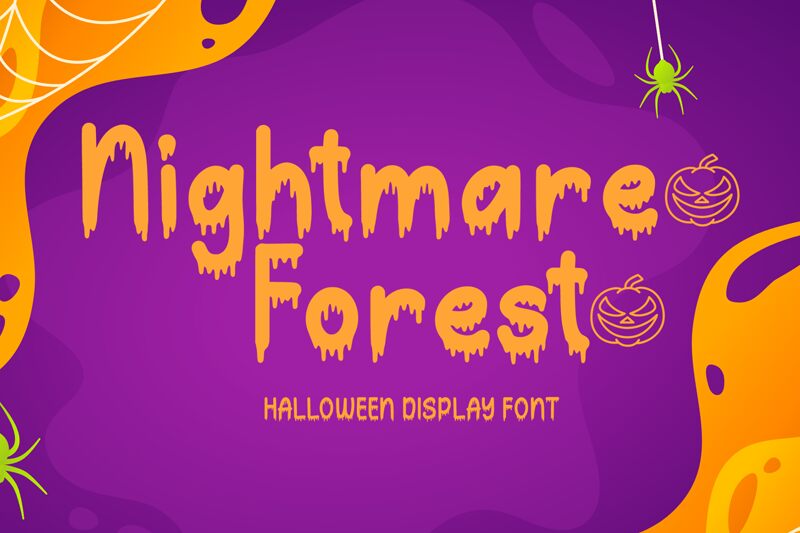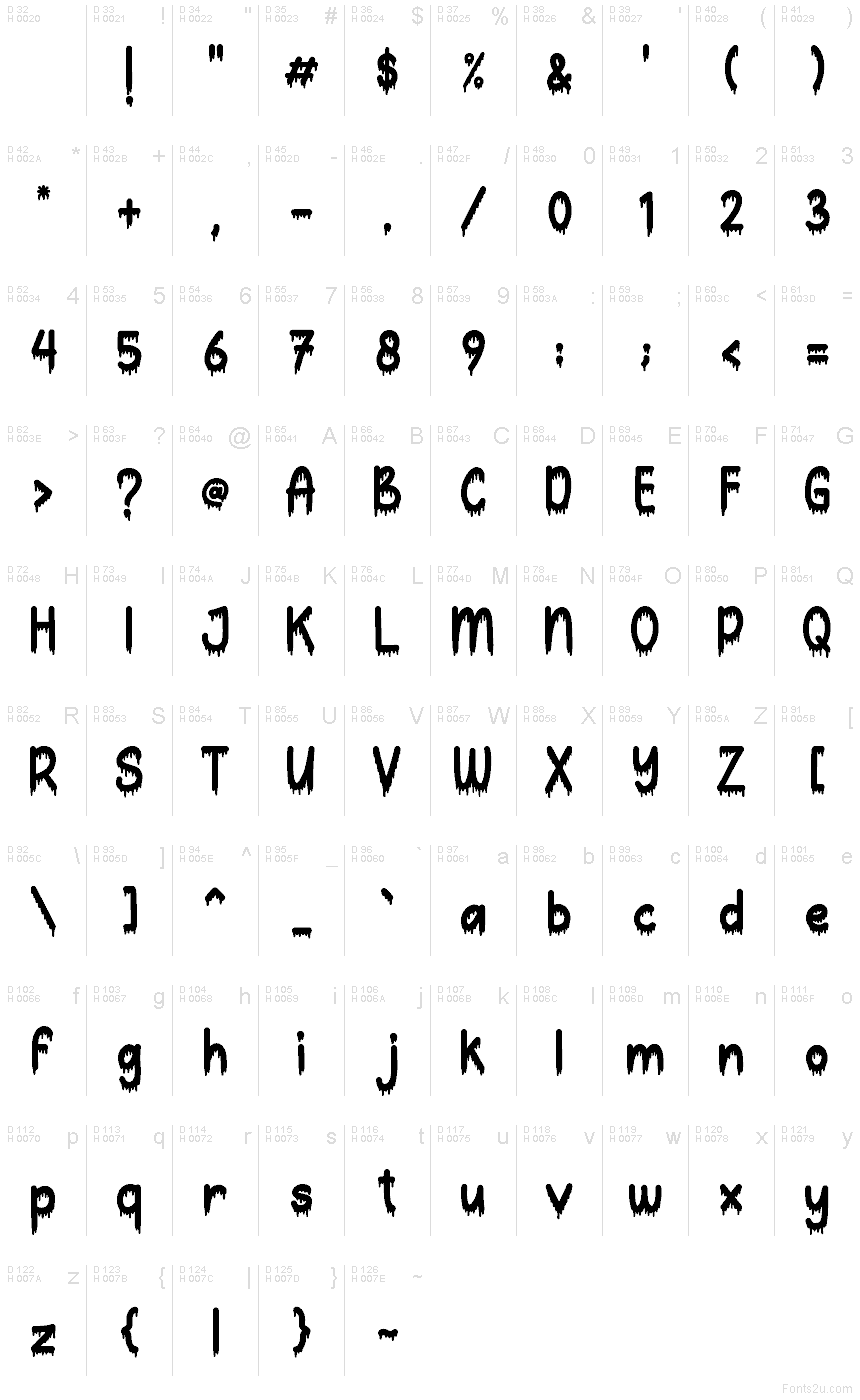
Nightmare Forest
Nightmare Forest font by AEN Creative Studio is a free Halloween display font. Thick, inky letters sag into gooey drips and ragged edges, like bark peeled back in the dark—instant spooky atmosphere with zero extra art. The spacing stays readable even at a glance, so your headline screams without getting messy.
Using Nightmare Forest, you can nail party posters, haunted house flyers, trick‑or‑treat bag designs, YouTube thumbnails, event signage, candy labels, and game titles. This free font shines when blown up big and set in high-contrast colors—acid green, pumpkin orange, bone white. Pair it with a clean geometric sans for body copy to keep the creepiness contained and the message clear.